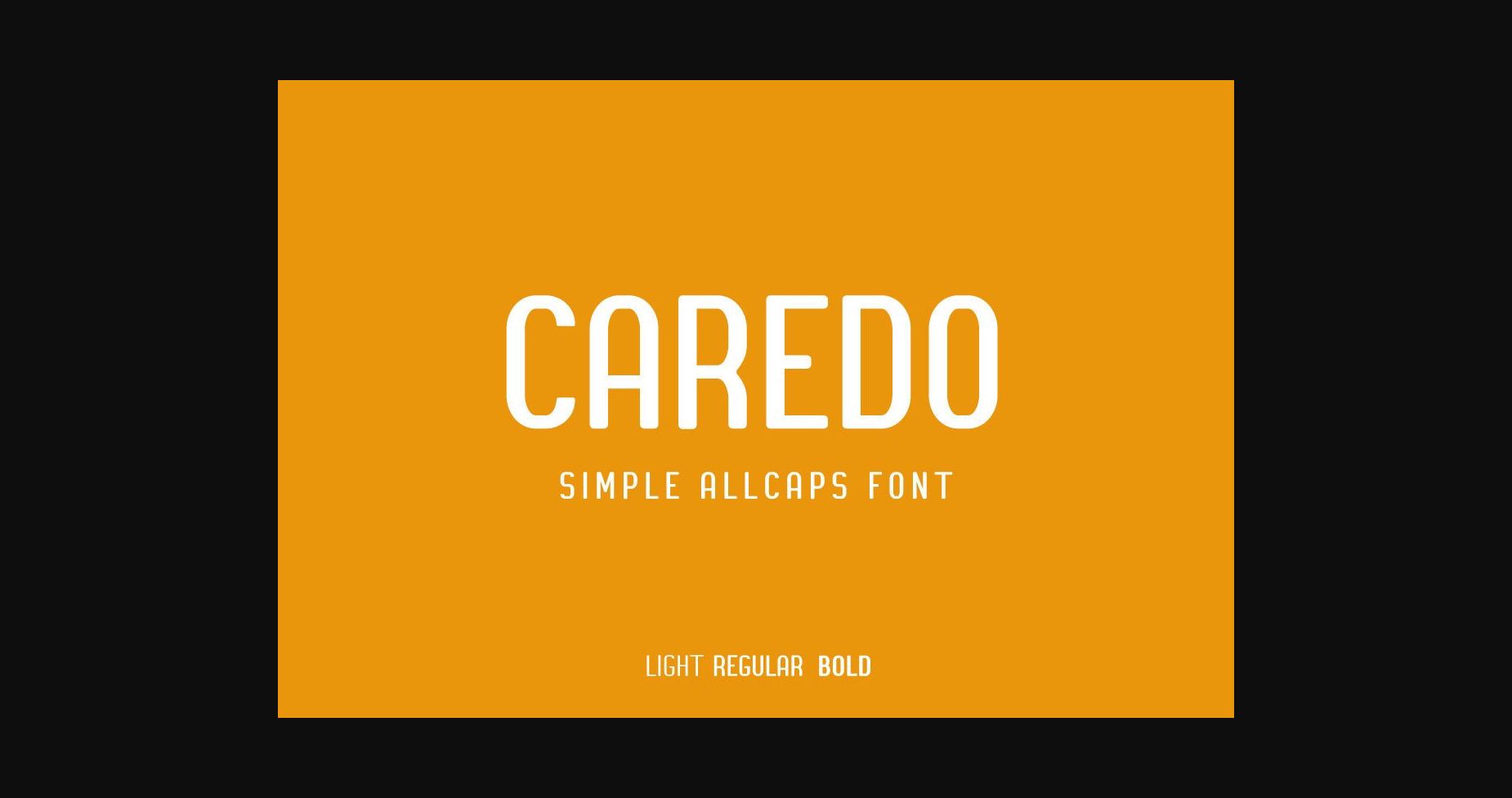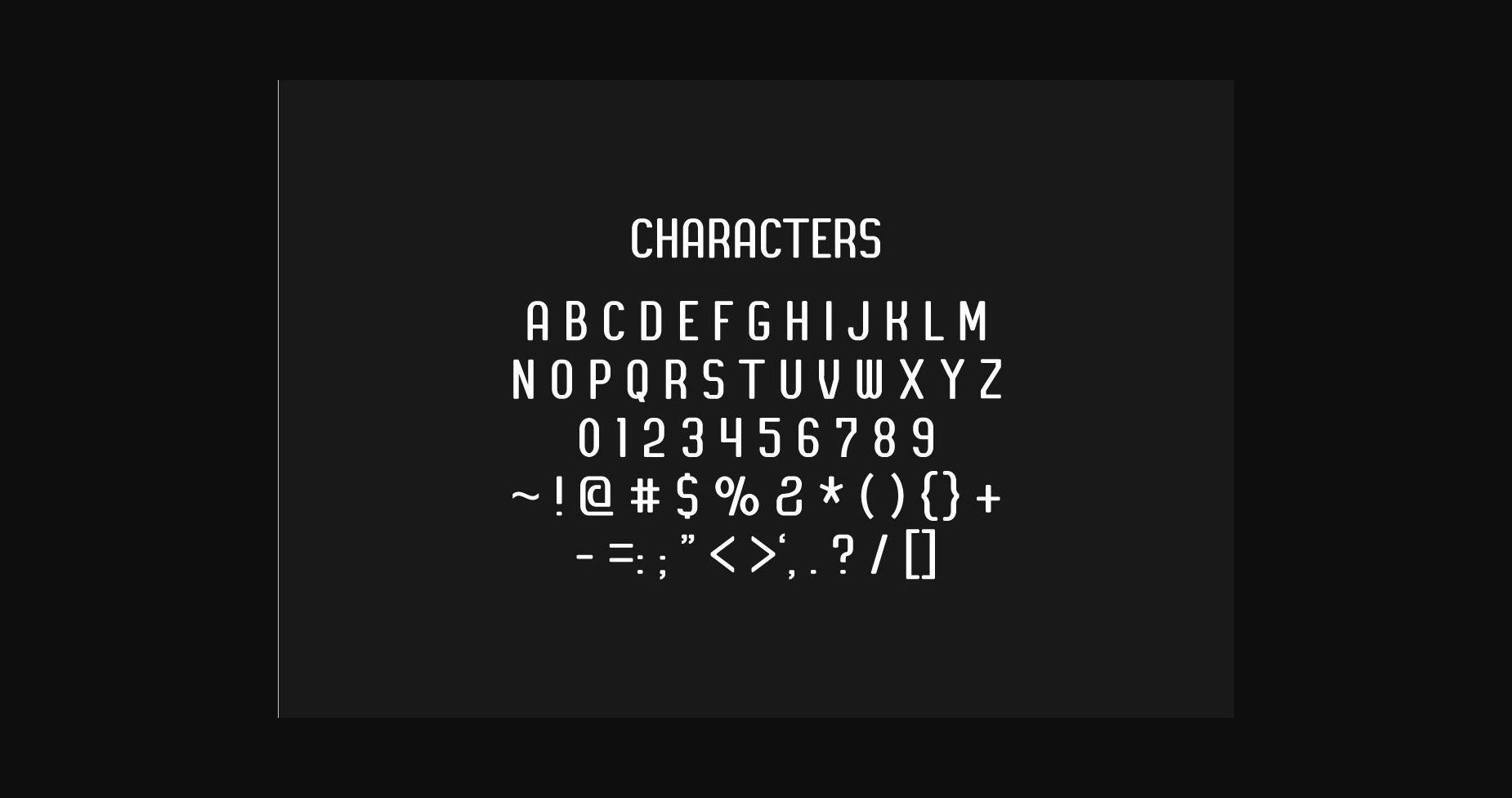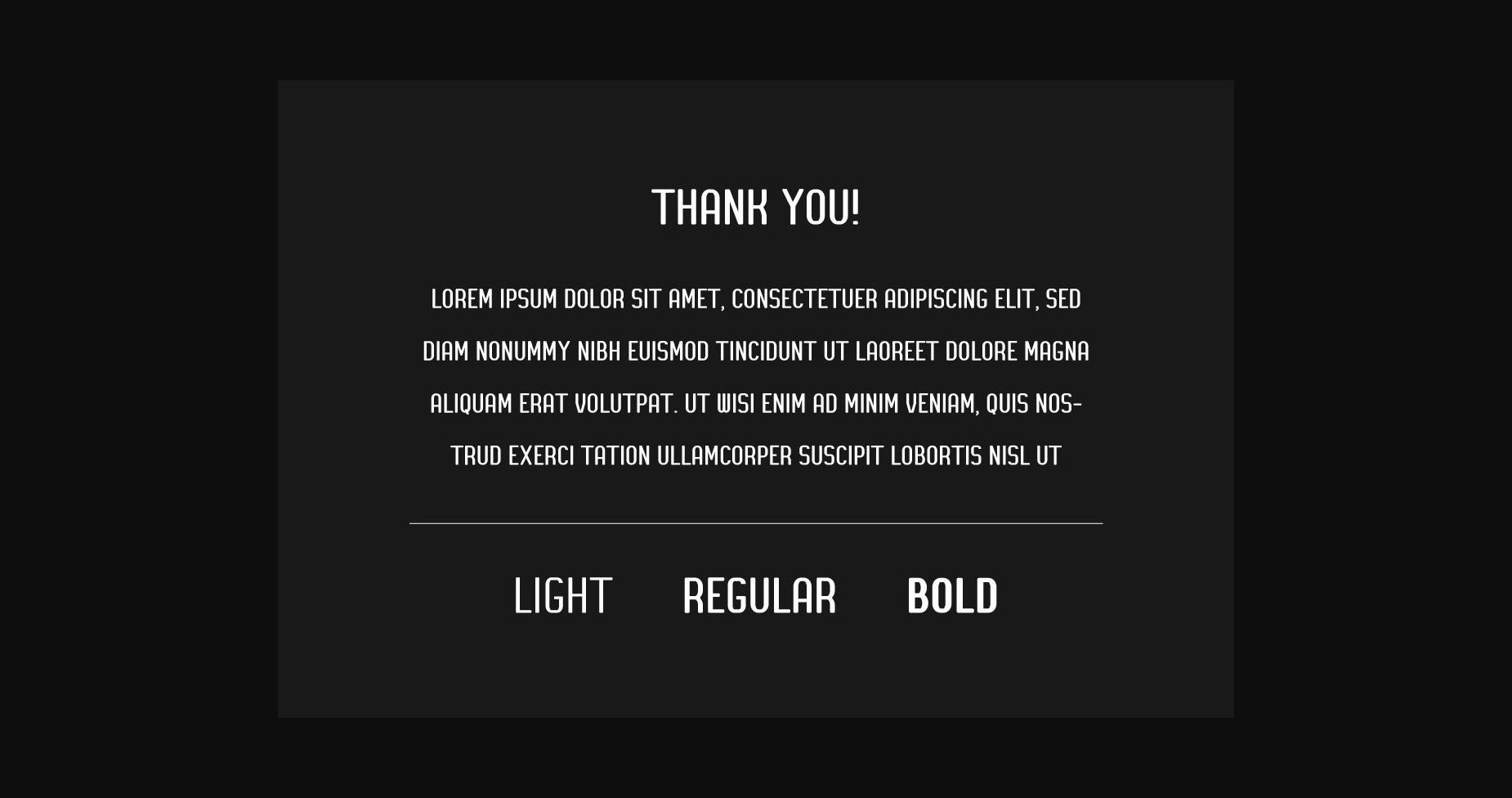
Caredo Font
About Caredo Font
CAREDO is a simple font. It brings a professional look with its minimalist style.
It suits perfectly in funny and formal forms, such as in the title of a magazine, headline, newspaper, office work, poster, book cover, logo, or banner, also it can be used in large-scale artwork. Caredo is on the all capital style.